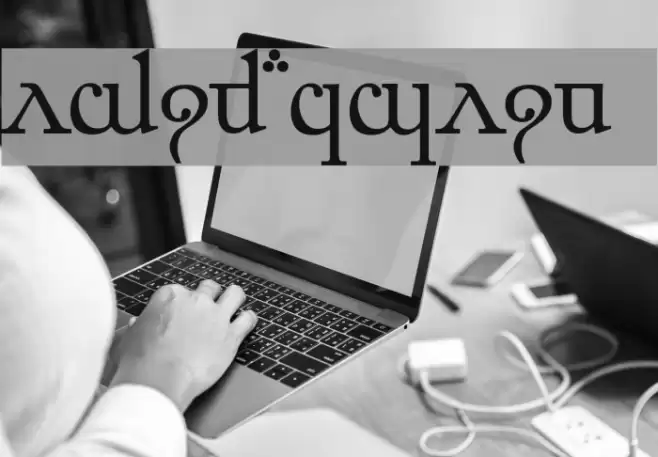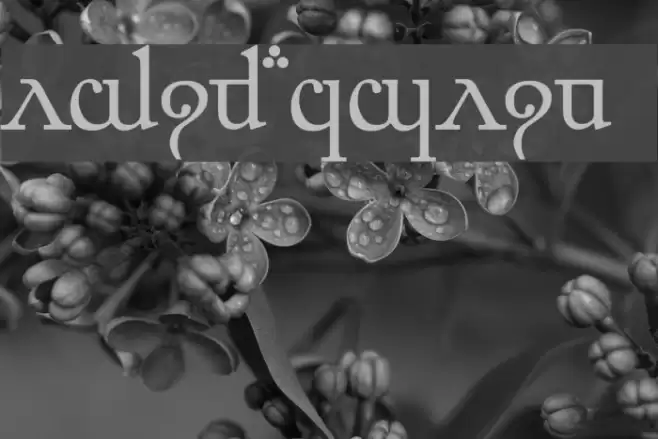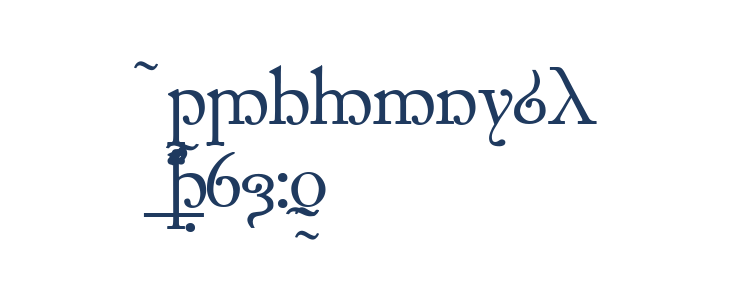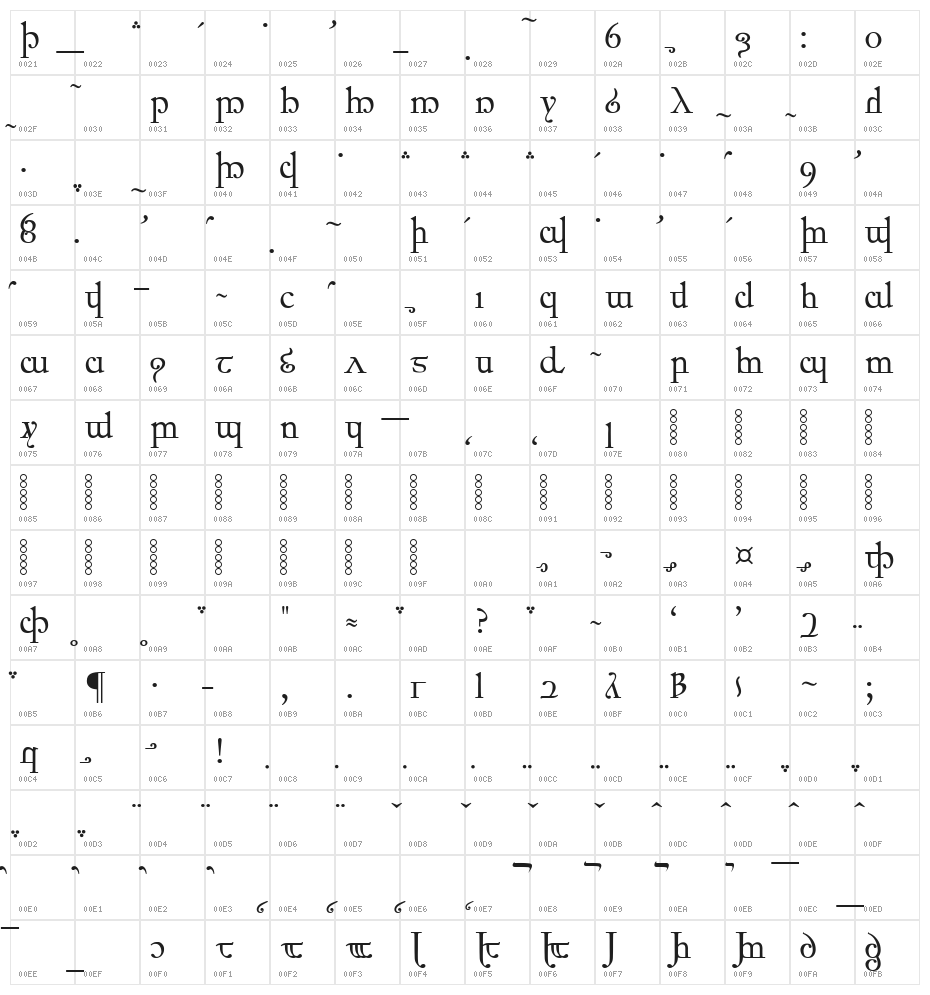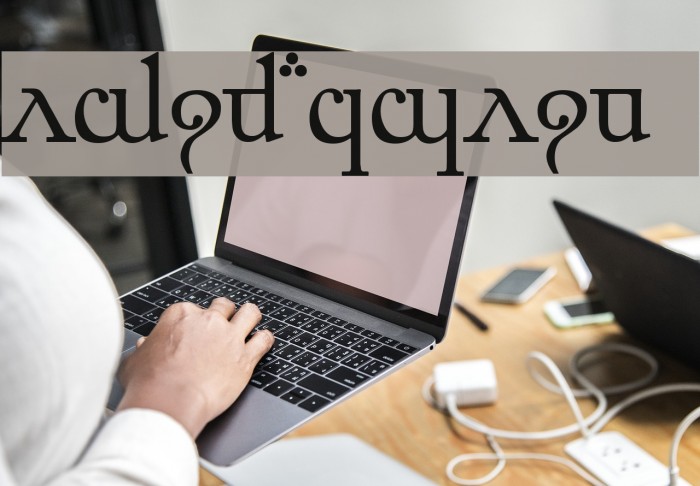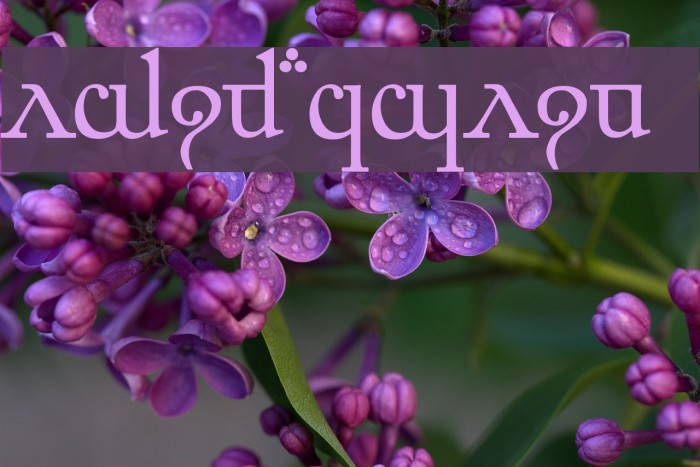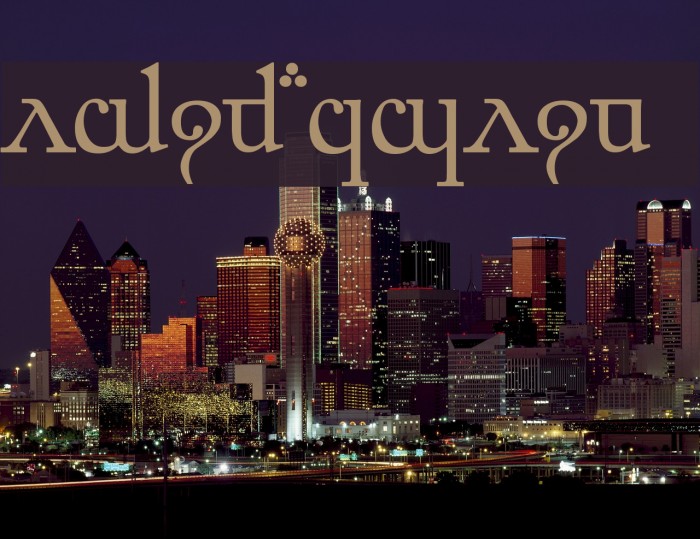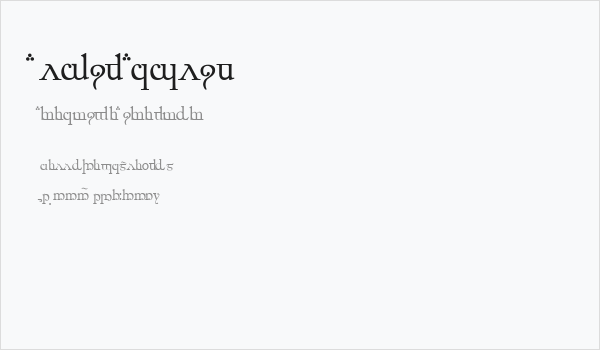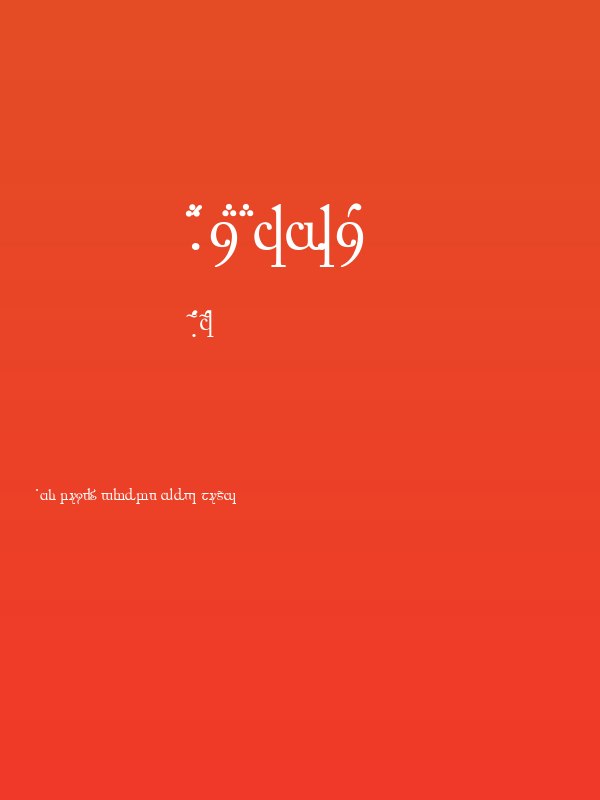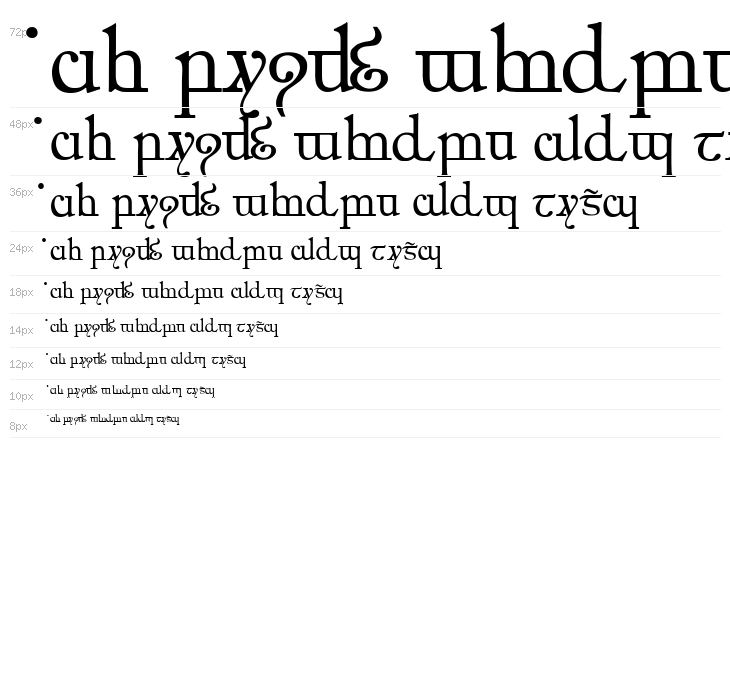
Elfic Caslin Font
Elfic Caslin Description
This font features a highly decorative and intricate design, reminiscent of ancient scripts and fantasy themes. The characters are adorned with elaborate flourishes and unique shapes, giving it an otherworldly appearance. The strokes vary in thickness, adding a dynamic and artistic flair. The overall style is complex and ornate, making it suitable for projects that require a touch of fantasy or historical elegance. The characters are closely spaced, enhancing the compact and cohesive look of the text.
An ornate and decorative font with a fantasy-inspired design from Uncategorized fonts.
- Proposed Projects: Ideal for fantasy book covers, game titles, themed event invitations, and decorative posters.
- Character Spacing: Tight
- Use Case: Logos, Headlines, Decorative text